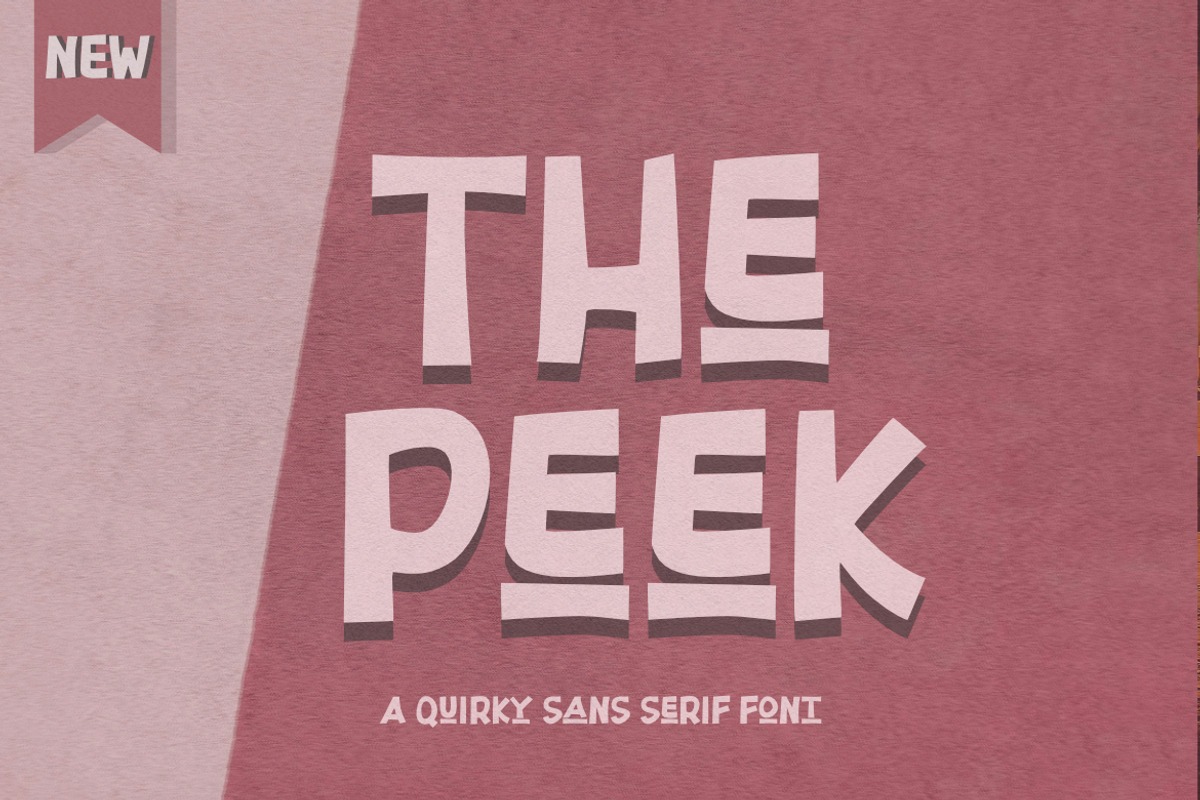
The Peek – Quirky Sans Serif Font
The Peek – Quirky Sans Serif Font brings a balanced structure and contemporary look, making it suitable for both digital and print design. The Peek Quirky Sans Serif Font, This font is made with a high premium quality level which you can use as flyers, quotes, posters, banners, packaging, merchandise, logotypes and much more.